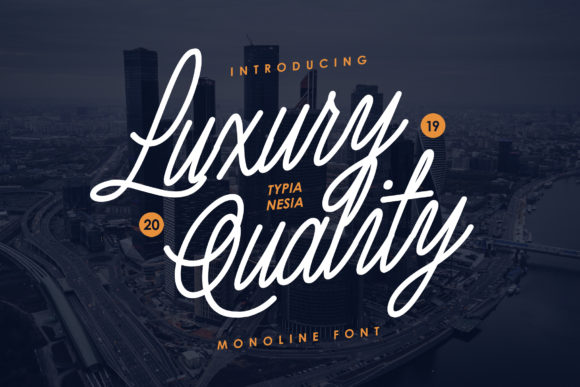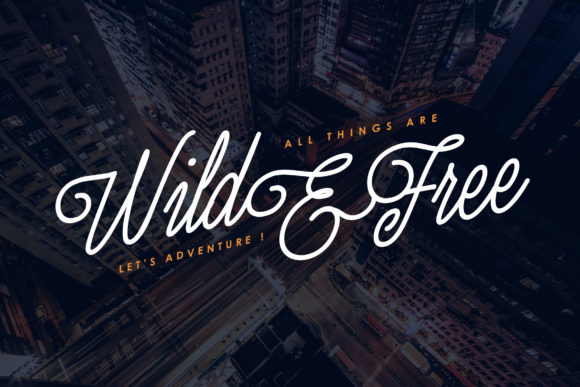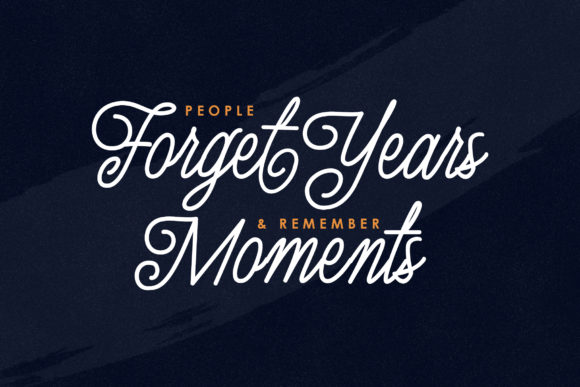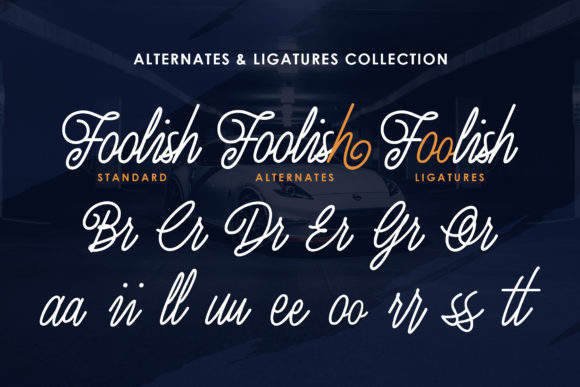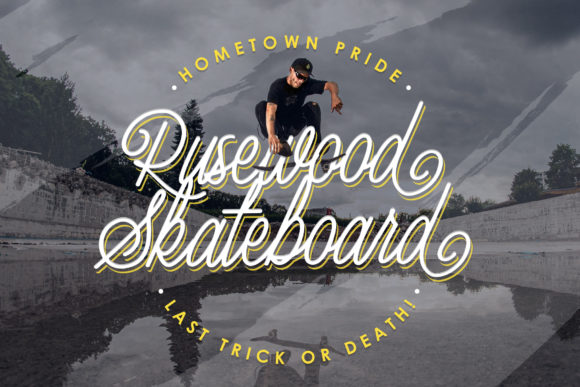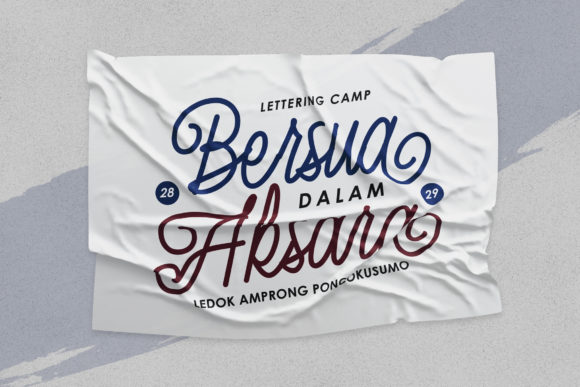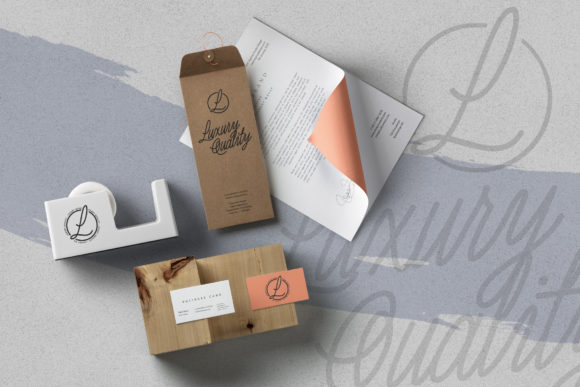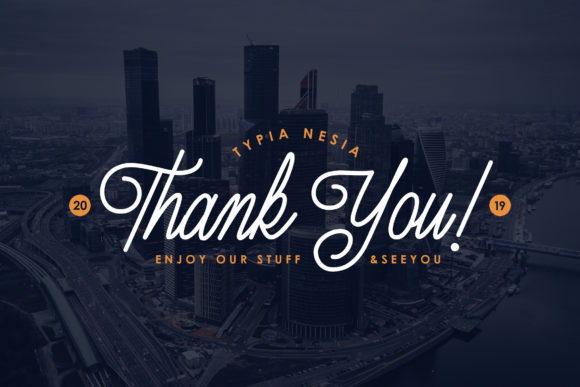
Luxury Quality Font
About Luxury Quality Font
Luxury Quality Font is an elegant and classy monoline script font. It is perfect for all your upcoming projects!